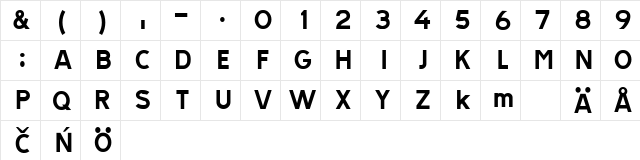
TRATEXNEGVERSAL NEGVERSAL
Design Context for TRATEXNEGVERSAL Typeface
TRATEXNEGVERSAL offers clean, dependable letterforms without strong stylistic allegiance, making it a practical choice for designers who need flexibility.